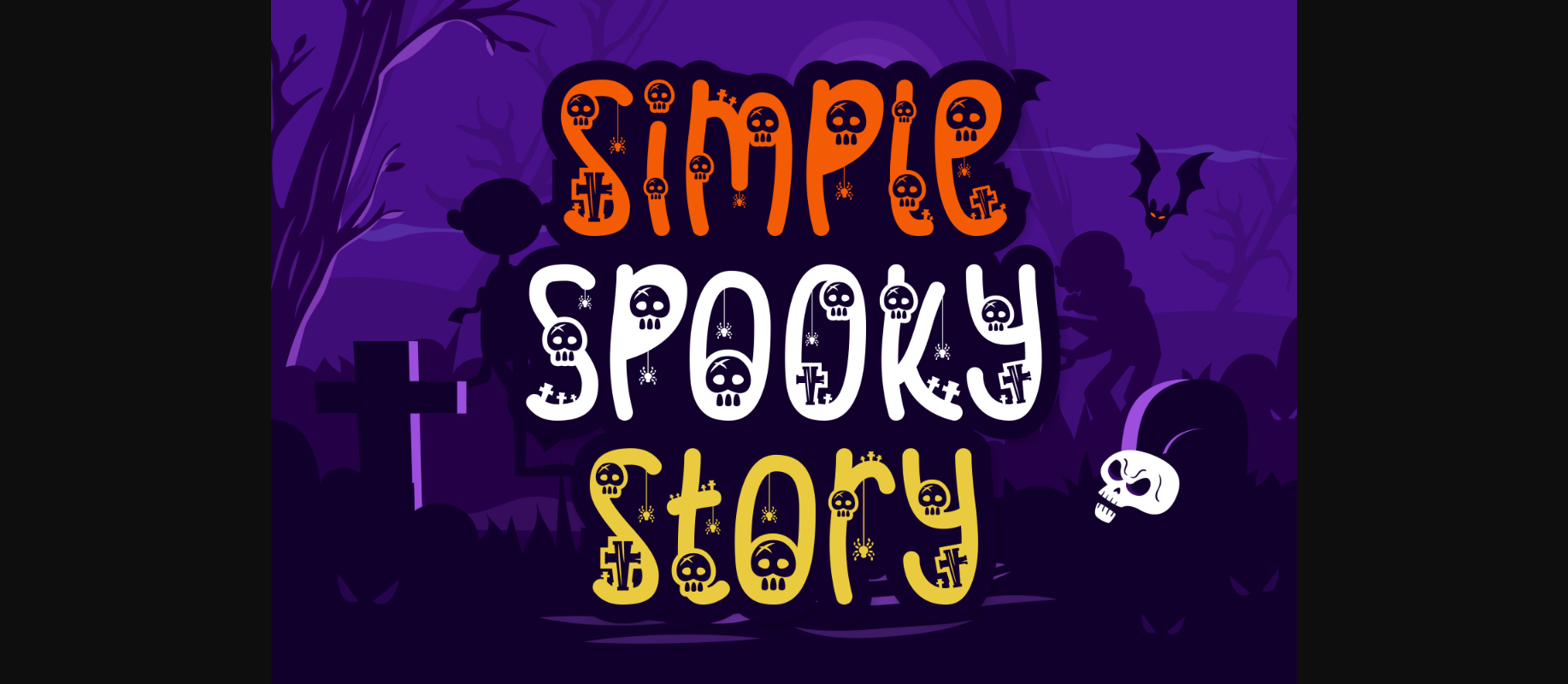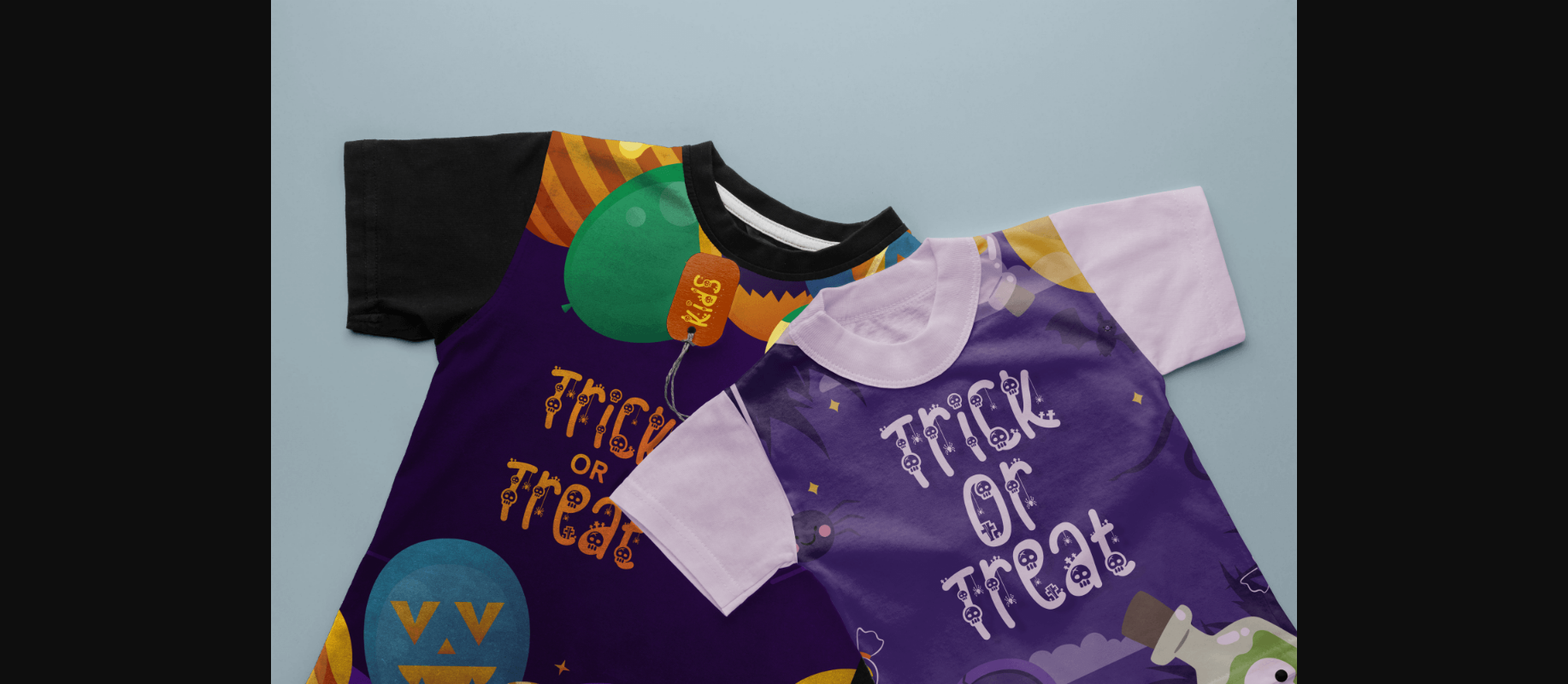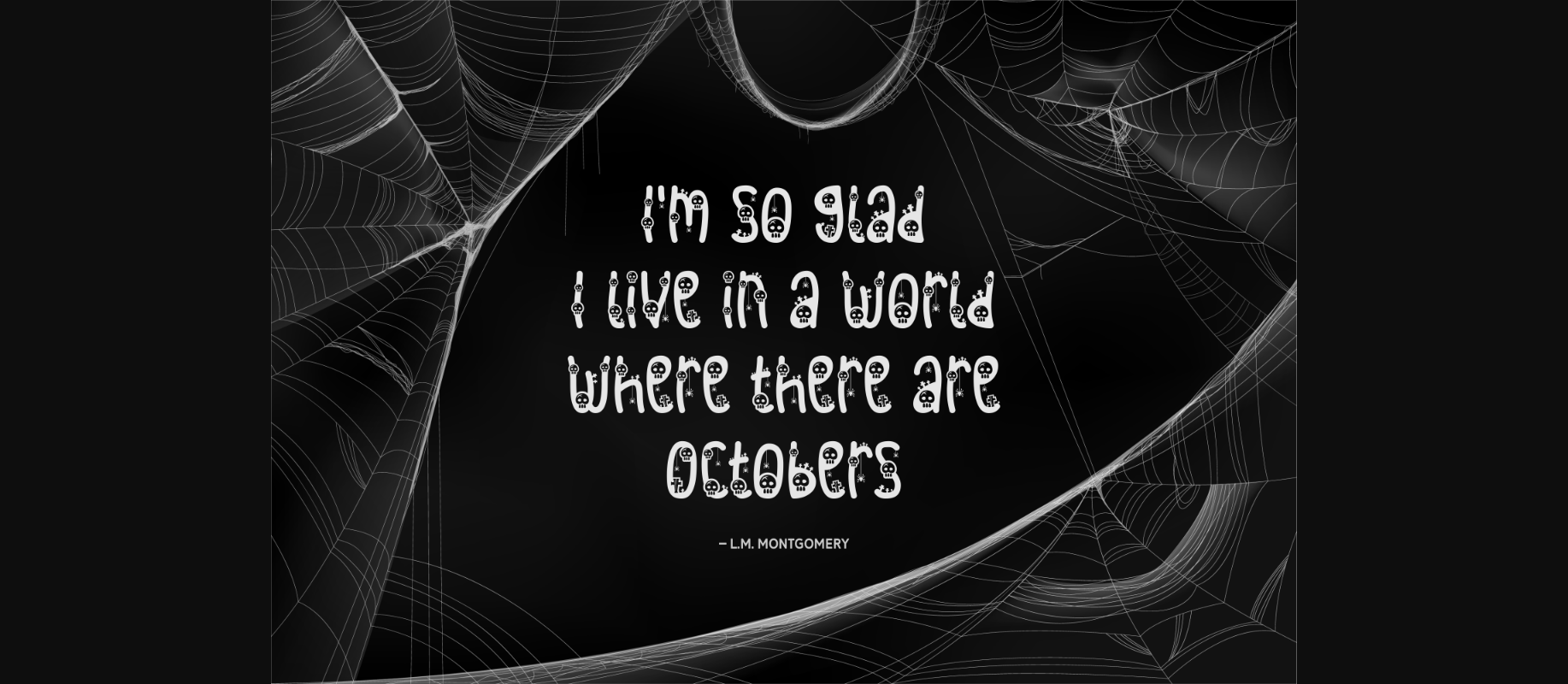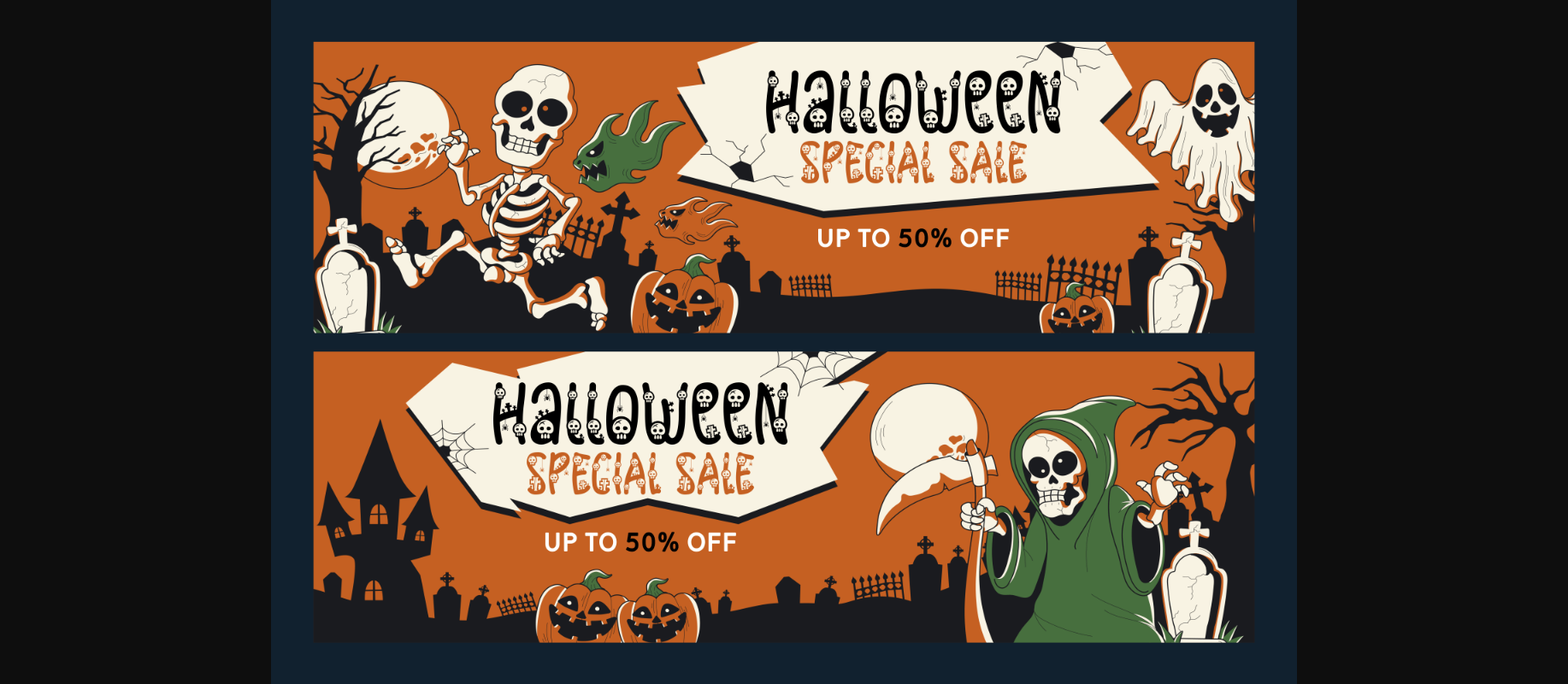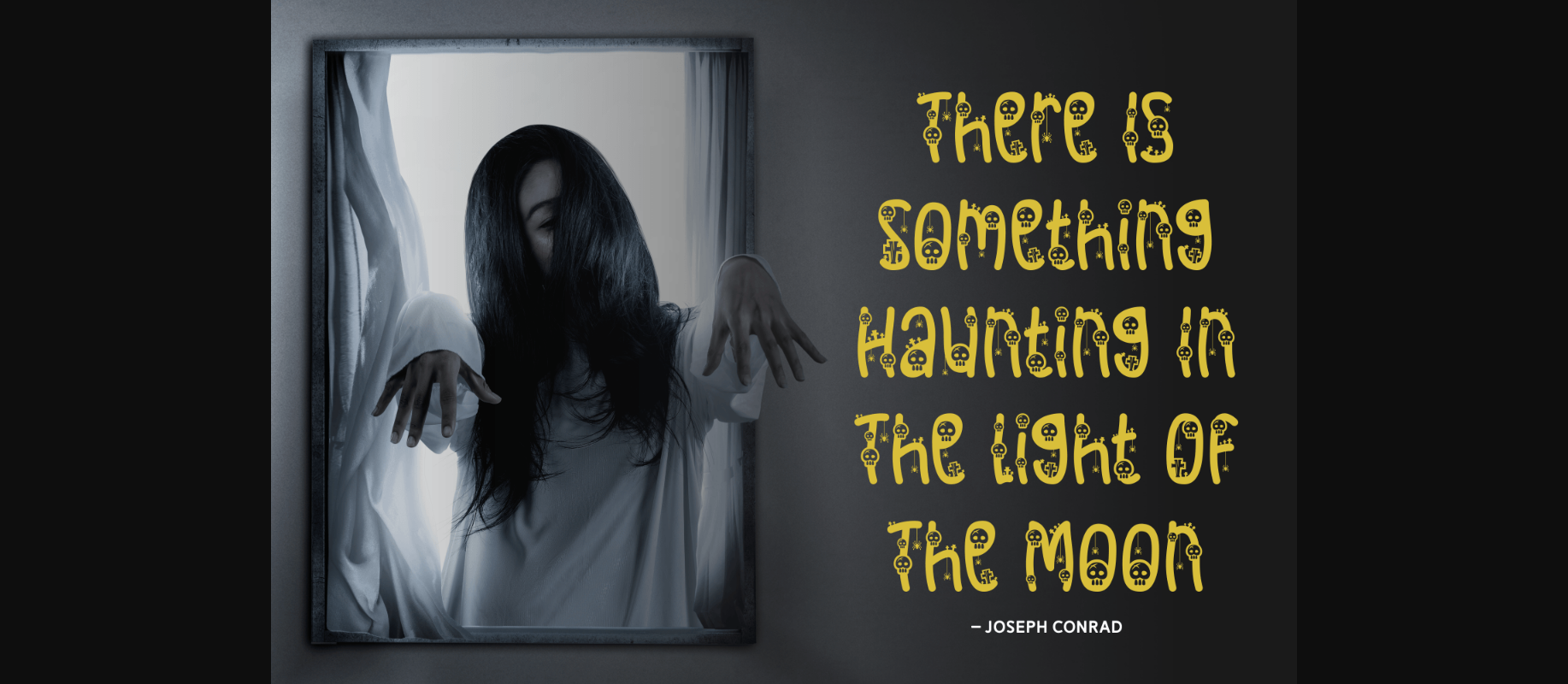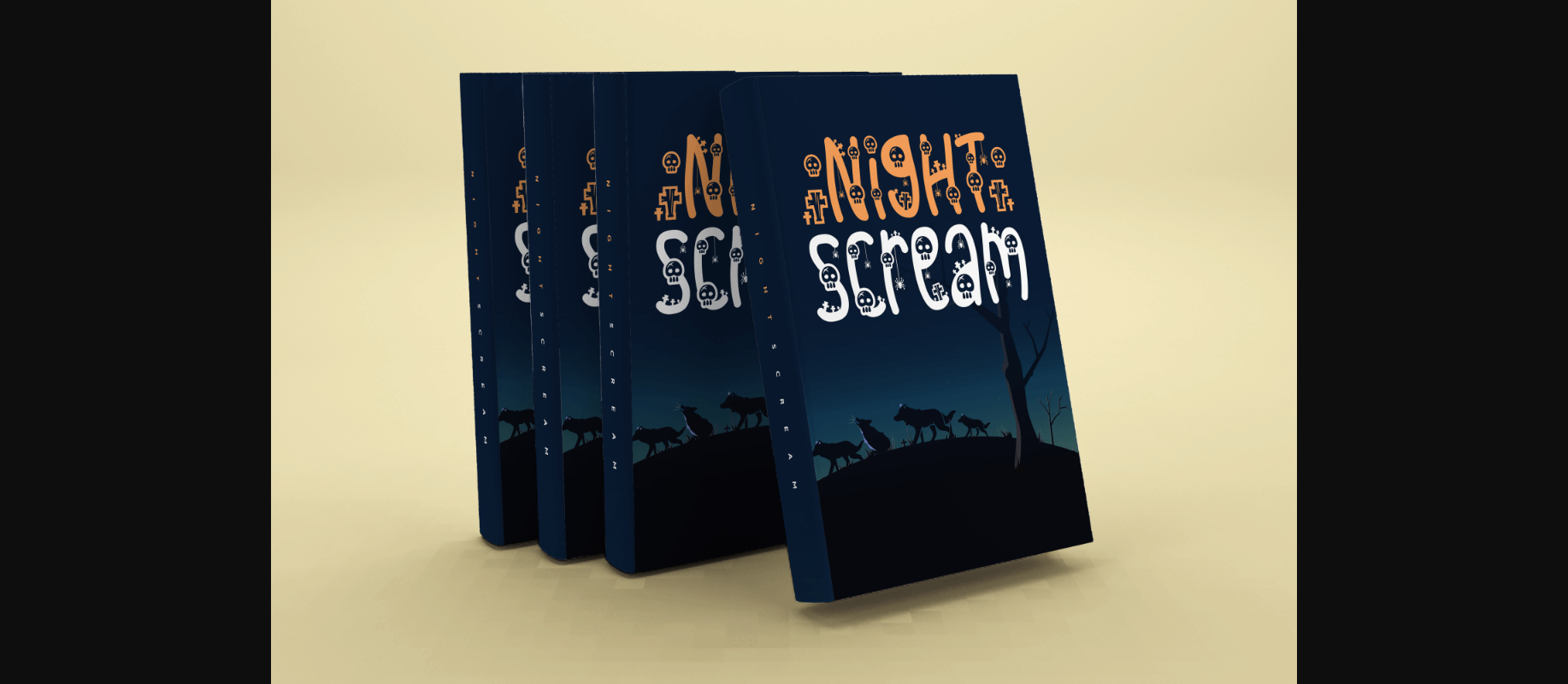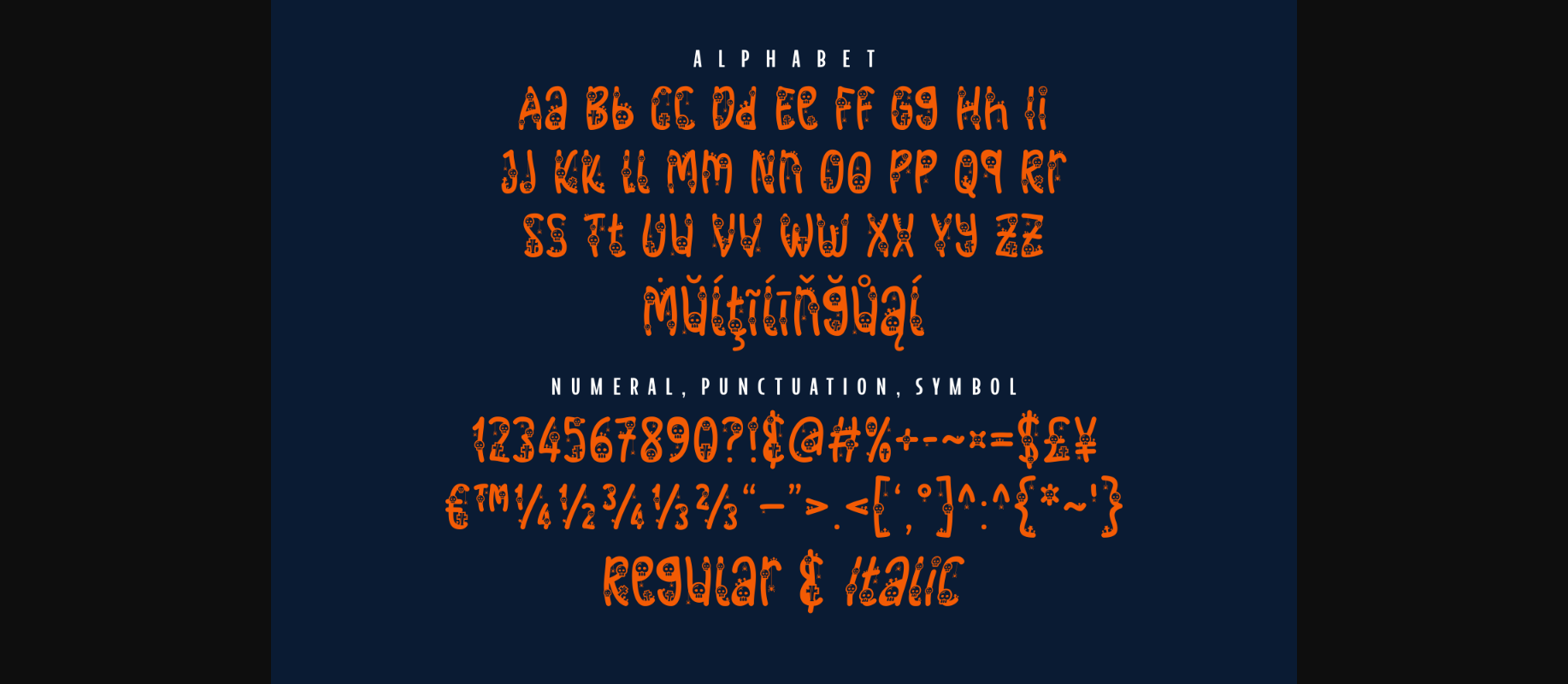
HomeDecorative FontsSimple Spooky Story Font Decorative Fonts Simple Spooky Story Font FacebookXPinterestWhatsApp 1 of 9 ... Simple Spooky Story Font Poster 2... Simple Spooky Story Font Poster 3... Simple Spooky Story Font Poster 4... Simple Spooky Story Font Poster 5... Simple Spooky Story Font Poster 6... Simple Spooky Story Font Poster 7... Simple Spooky Story Font Poster 8... Simple Spooky Story Font Poster 9... About Simple Spooky Story Font Simple Spooky Story is a fun and unique decorative font. Ideal for your October designs, this font will become your favorite choice in no time! DOWNLOAD NOW People also explored Landon Slatten Font Mackless Font Study Hard Font Sunkiss Holiday Font Label Pro XL Maize Yellow Bella Canvas 3001 Mockup Nasi Goreng Font Abc Pro Tracing Dot Font Handmade Calligraphy Font 372 0 TagsSimple Spooky Story Font Previous articleGood Xmas FontNext articleHaunted Town Font LEAVE A REPLY Cancel reply Comment: Please enter your comment! Name:* Please enter your name here Email:* You have entered an incorrect email address! Please enter your email address here Website: Save my name, email, and website in this browser for the next time I comment. Personal Use Free Barbatrick Personal Use Free Read more about this font BD Beans Personal Use Free Read more about this font Geracella Personal Use Free Read more about this font Ancient Script Personal Use Free Read more about this font BLOG How to Cut Any Font on Cricut: Convert a Font to SVG (Free) Turn any font into a clean SVG so it cuts crisp on Cricut - a quick 3-step workflow using a free font-to-SVG tool. Transform Your Website: Elevate Your Typography with 7 Best Web Font Generators To increase your work productivity, choose the most readable fonts. Free Fonts Risk: Why Free Fonts Can Be Dangerous for Designers